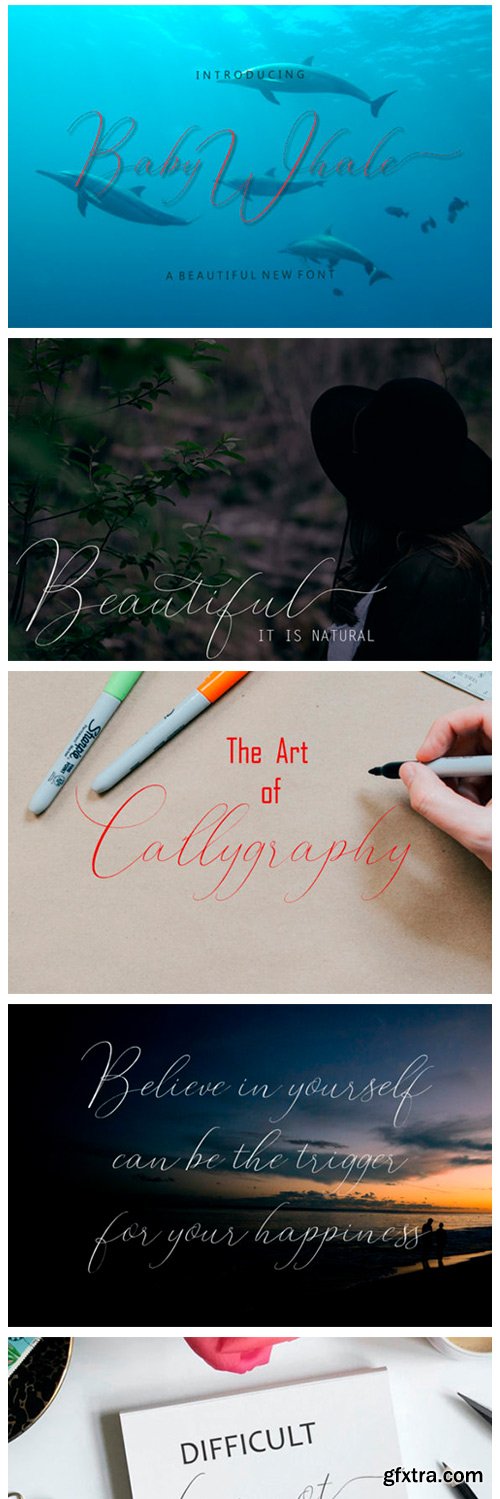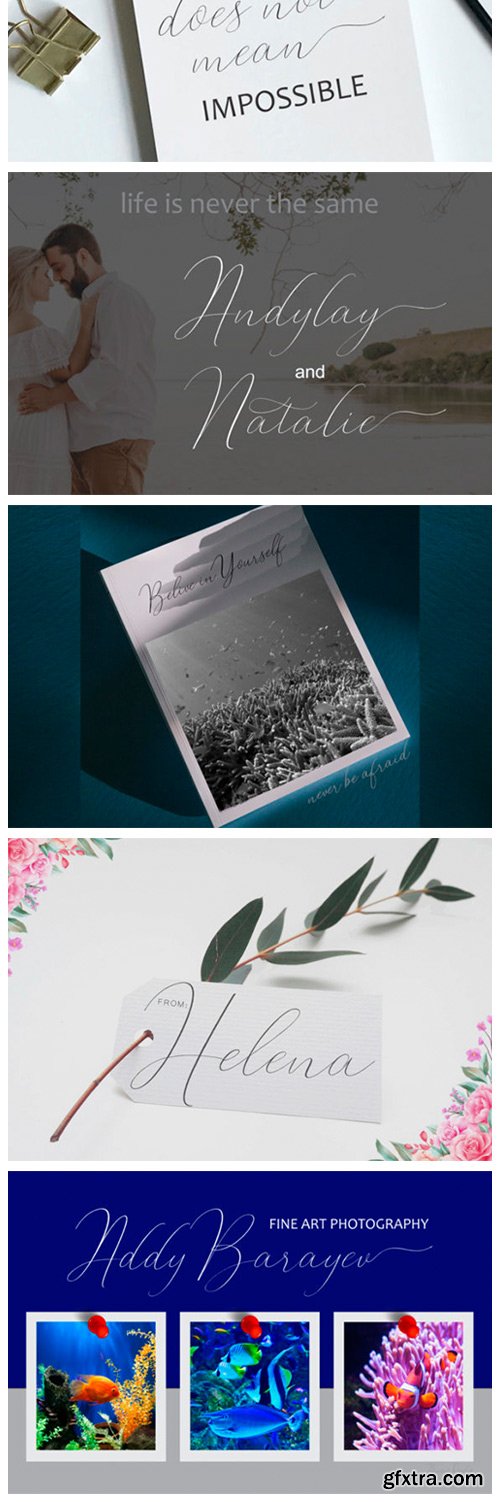
Baby Whale Font
Baby Whale is a sweet and delicate handwritten font. Its fashionable and cursive style makes it incredibly fitting for a large pool of designs. This font is PUA encoded which means you can access all of the glyphs and swashes with ease!